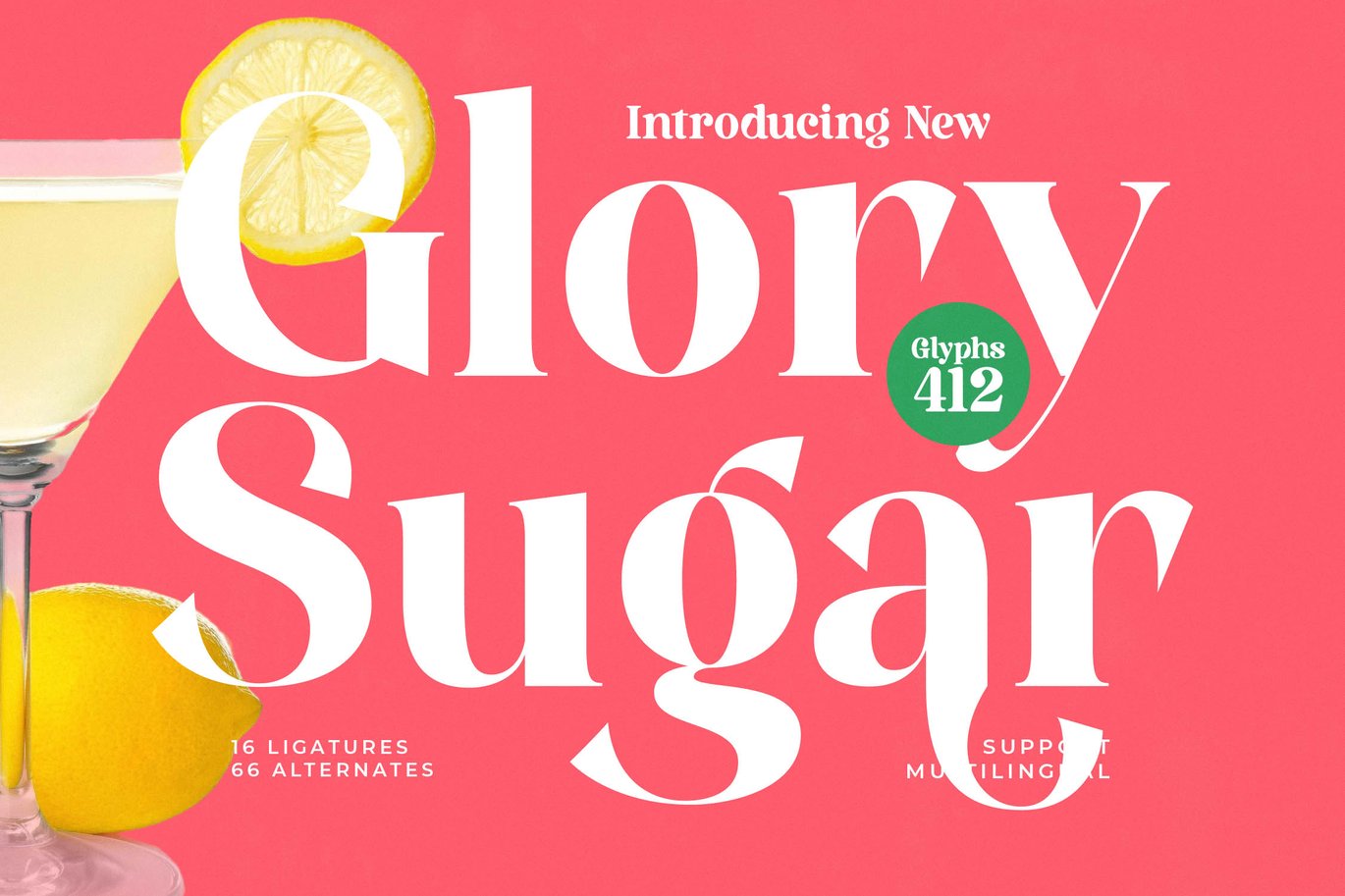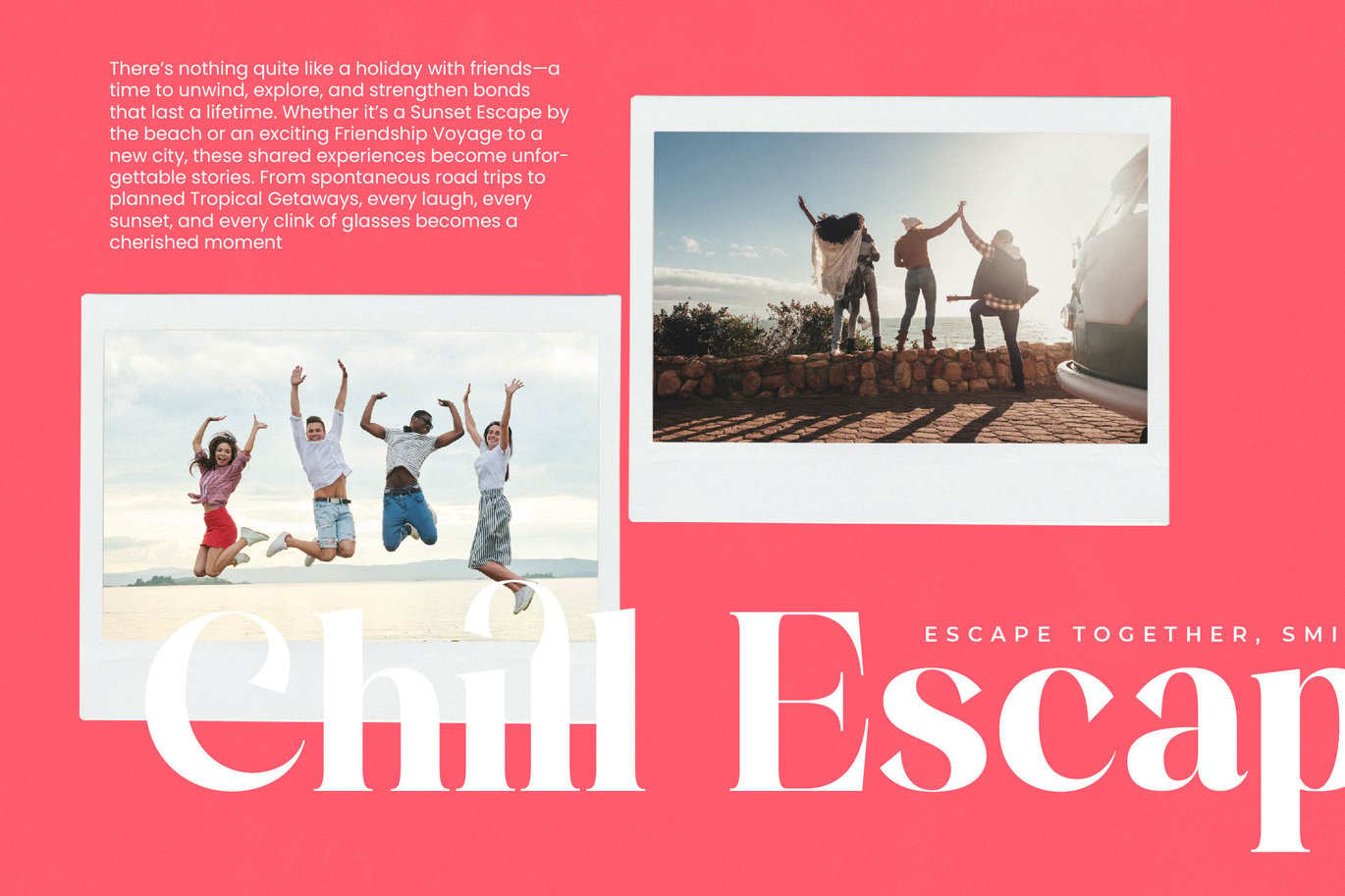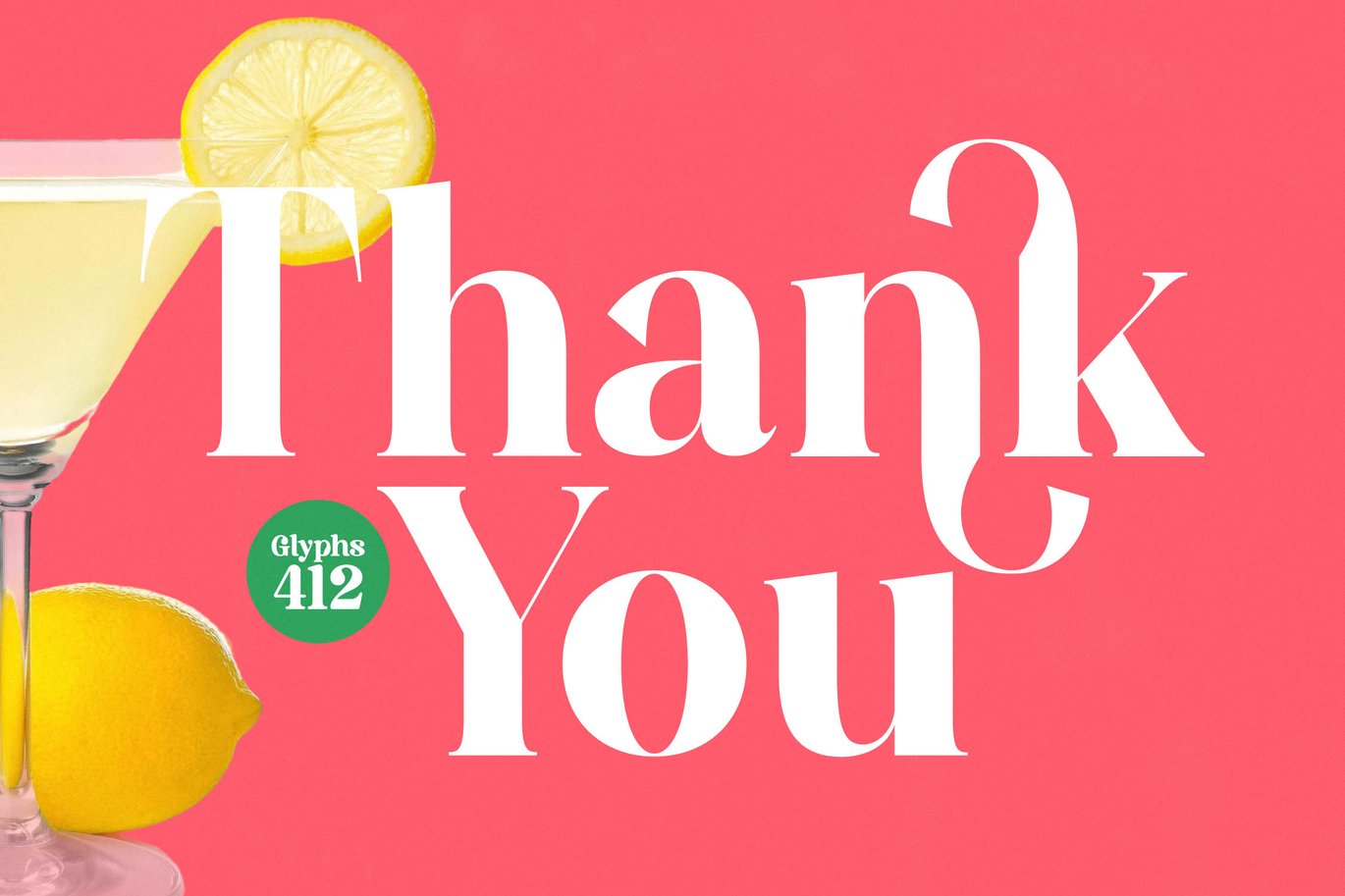
Glory Sugar – Modern Serif Font
Glory Sugar – Modern Serif Font is a versatile typeface ideal for various projects, including logos, branding, posters, blog headers, advertisements. The free version includes a full set of uppercase and lowercase letters, available in OTF format.